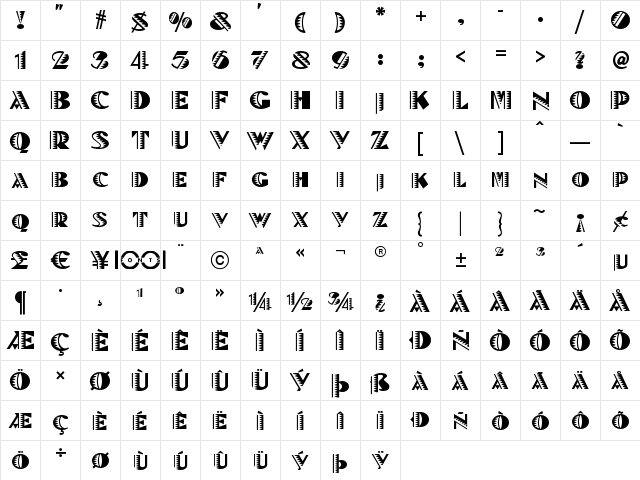
Bete Noir NF Regular
Design Context for Bete Noir NF Typeface
Bete Noir NF is a composed and adaptable typeface that performs quietly and consistently across a wide range of design contexts.